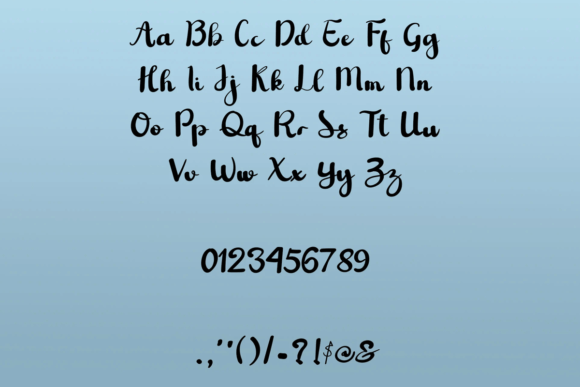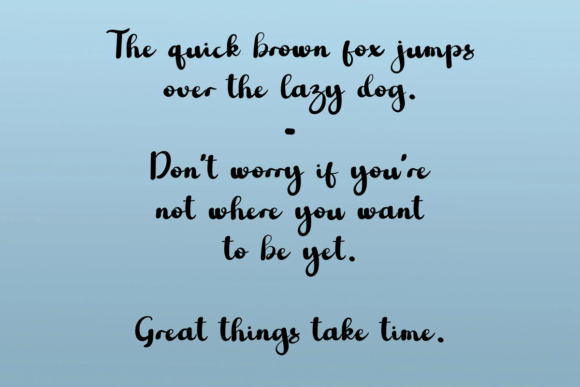
Introducing Delight Font: The Playful Brush Script for Creative Designs
Are you tired of using the same old fonts for your designs? Look no further than Delight Font, a fun and stylish brush script that adds a personal touch to any project. Delight Brush Script is a hand-painted font that mimics the look of a brush stroke, giving it a lively and creative feel that’s perfect for designers and crafters alike.
The Characteristics of Delight Font
Delight Font is a unique and eye-catching font that’s characterized by its playful curls and swoops. The font’s hand-painted look gives it a organic and whimsical feel, making it perfect for designs that require a personal touch. The brush script style of Delight Font is reminiscent of traditional hand-painted signs and invitations, but with a modern twist that makes it suitable for a wide range of design applications.
Uses for Delight Font
Delight Font is a versatile font that can be used for a variety of design projects, including:
- Invitations: Whether you’re planning a wedding, birthday party, or baby shower, Delight Font is the perfect choice for creating custom invitations that set the tone for your special event.
- Posters: Add a pop of personality to your posters with Delight Font, which is perfect for promoting events, products, or services in a fun and eye-catching way.
- Branding: Delight Font can be used to create custom branding elements, such as logos, business cards, and letterheads, that reflect your company’s playful and creative personality.
- Crafting: Delight Font is also perfect for crafters who want to add a personal touch to their projects, such as handmade cards, scrapbook pages, and DIY signs.
Benefits of Using Delight Font
There are many benefits to using Delight Font in your designs, including:
- Unique and eye-catching: Delight Font is a one-of-a-kind font that will make your designs stand out from the crowd.
- Playful and creative: The font’s playful curls and swoops give it a lively and creative feel that’s perfect for designs that require a personal touch.
- Versatile: Delight Font can be used for a wide range of design applications, from invitations and posters to branding and crafting.
Tips for Using Delight Font
Here are a few tips for using Delight Font in your designs:
- Pair with a simple font: Delight Font is a bold and eye-catching font, so it’s best to pair it with a simple font that provides contrast and balance.
- Use it sparingly: While Delight Font is a beautiful font, it can be overwhelming if used too much. Use it sparingly to add a pop of personality to your designs.
- Experiment with colors: Delight Font looks great in a variety of colors, so don’t be afraid to experiment and find the perfect color scheme for your design.
Delight Font is a fun and stylish brush script that’s perfect for designers and crafters who want to add a personal touch to their designs. With its playful curls and swoops, Delight Font is a unique and eye-catching font that’s sure to make your designs stand out from the crowd. Whether you’re creating invitations, posters, or branding elements, Delight Font is a versatile font that’s easy to use and fun to work with.